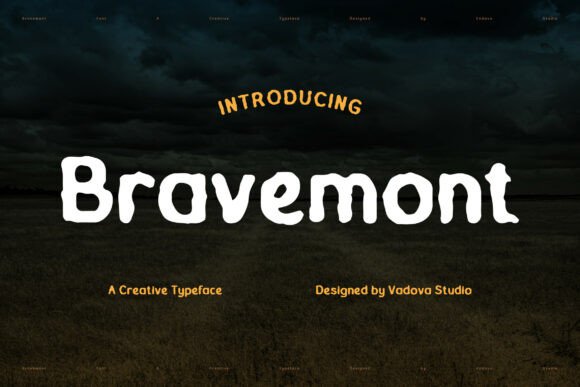
The Ultimate Guide to Bravemont Font: Unleashing Rugged Whimsy in Your Designs
I’ll never forget the design project that led me to discover Bravemont Font. I was working on a branding campaign for an outdoor gear company, and I needed a font that could capture the essence of adventure and ruggedness while still being approachable and fun. After hours of scouring font libraries and trying out different typefaces, I stumbled upon Bravemont – and it was love at first sight! ✨
This creative display font has a unique, hand-carved character that instantly elevates any project with its bold, irregular letterforms and organic texture. In this article, I’ll share my honest review of Bravemont, provide a practical guide on how to use it, and explore similar fonts that might tickle your fancy.
• ✅ Rugged-and-whimsical vibe: Bravemont’s bold, wobbly outlines and stamp-like texture make it perfect for designs that need a dash of adventure and personality.
• ✅ Chunky structural weight: This font packs a punch with its sturdy, attention-grabbing presence – ideal for headlines, titles, and social media headers.
• ✅ OpenType features: Bravemont comes with a range of OpenType features, including stylistic alternates, glyphs, and ligatures, giving you plenty of creative freedom.
• ✅ Versatile: From independent outdoor lifestyle branding to artisanal food packaging and children’s book titles, Bravemont can adapt to various design contexts.
While Bravemont is an amazing font, there are a few things to keep in mind: 🤔
• ⚠️ Legibility at small sizes: Due to its bold, chunky design, Bravemont can become tricky to read at very small font sizes. Use it for headlines or titles rather than body text.
• ⚠️ Limited use in formal contexts: Bravemont’s rugged, whimsical nature makes it less suitable for formal or corporate designs. Stick to creative, playful projects where its personality can shine.
If you love Bravemont but want to explore other options, here are some similar fonts you might enjoy:
• Rock Salt: This font shares Bravemont’s rugged, hand-carved feel but with a more rustic, distressed look. Use it for designs that need a vintage, outdoorsy vibe.
• Majicon: With its bold, geometric shapes and playful personality, Majicon is perfect for designs that require a modern, adventurous feel.
• Copperplate: This classic font has a similar elegance and sophistication to Bravemont but with a more refined, engraved look. Use it for designs that need a touch of luxury and sophistication.
• Great Vibes: This script font has a similar whimsical, hand-drawn feel to Bravemont but with a more fluid, connected look. Use it for designs that need a playful, artistic touch.
Designer Inspiration: The Story Behind Bravemont
While the true story behind Bravemont’s creation is unknown, it’s easy to imagine that its designer was inspired by the great outdoors and a love of handmade crafts. Perhaps they spent countless hours exploring the wilderness, collecting interesting rocks and sticks, and experimenting with hand-carved letters. Whatever the inspiration, Bravemont’s unique blend of ruggedness and whimsy has captured the hearts of designers and crafters alike.
Q: What is Bravemont Font best suited for?
A: Bravemont is perfect for designs that need a bold, adventurous personality, such as independent outdoor lifestyle branding, artisanal food packaging, children’s book titles, and high-impact social media headers.
Q: Does Bravemont come with OpenType features?
A: Yes, Bravemont includes a range of OpenType features, such as stylistic alternates, glyphs, and ligatures, which can be accessed in compatible design software.
Q: Can I use Bravemont for body text?
A: While Bravemont is a beautiful font, it’s best suited for headlines and titles rather than body text. Its bold, chunky design can be overwhelming for longer blocks of text.